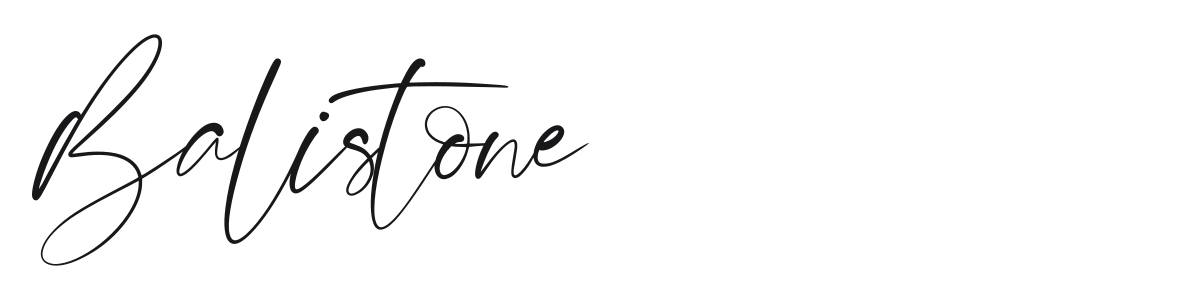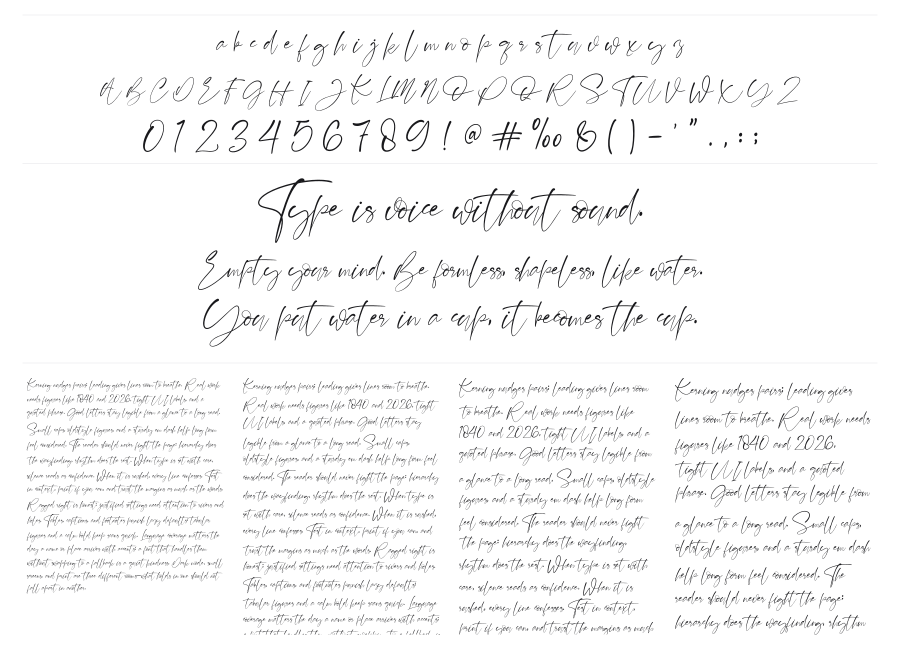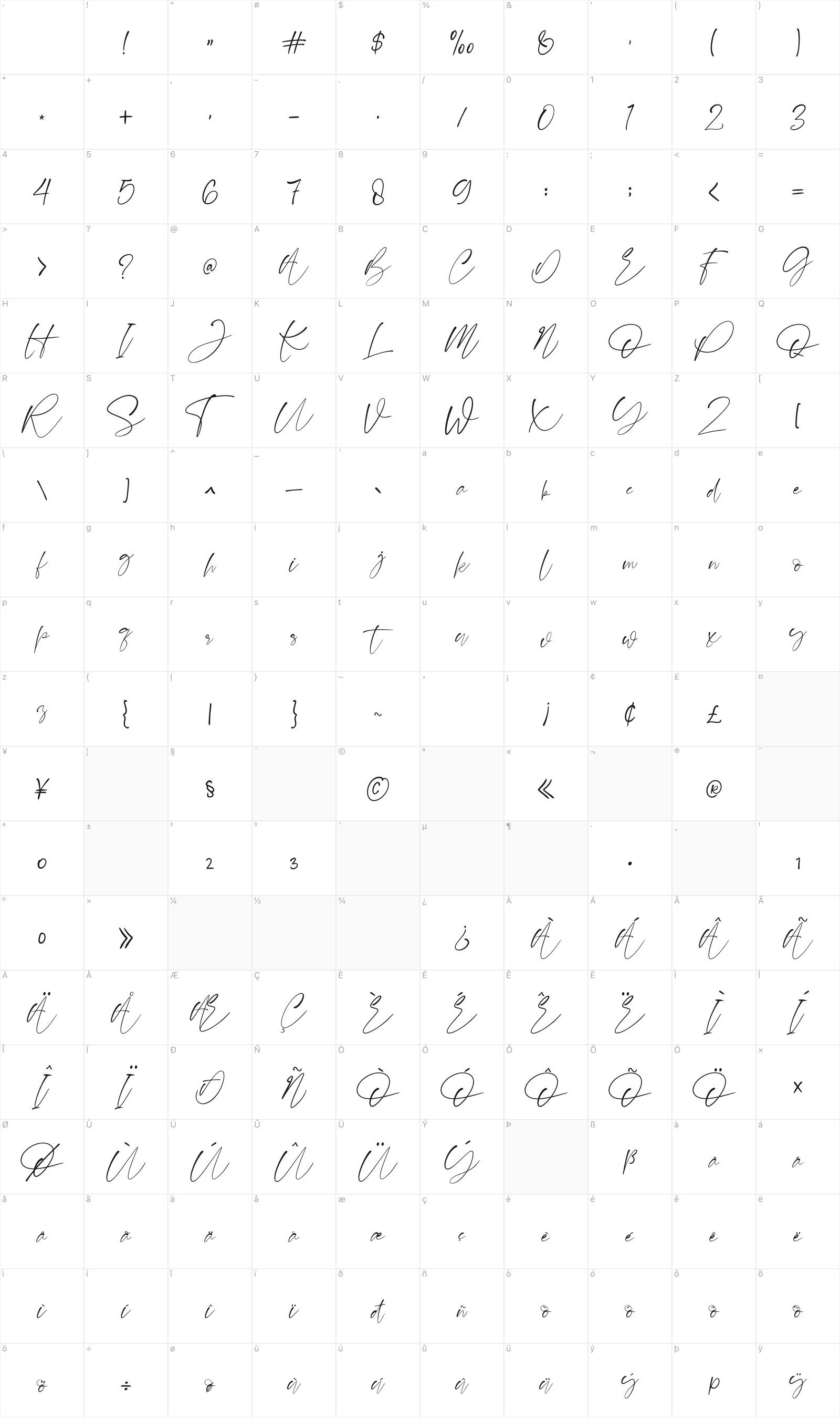
Balistone
Balistone is a flowing casual script with generous loops, long swashing strokes, and the kind of relaxed elegance that feels genuinely hand-lettered. The contrast between thick downstrokes and hairline upstrokes gives it energy without formality. It suits wedding stationery, boutique branding, and anywhere a handcrafted warmth is the point.